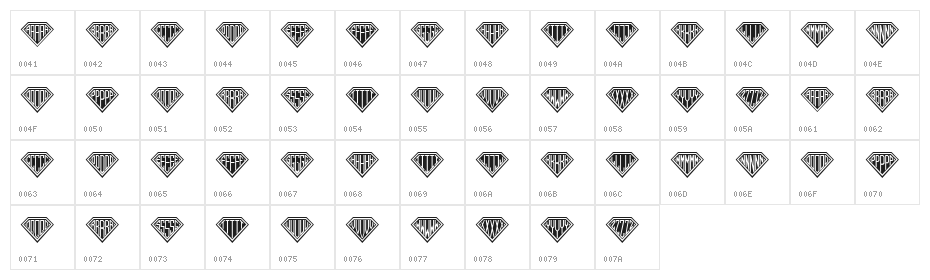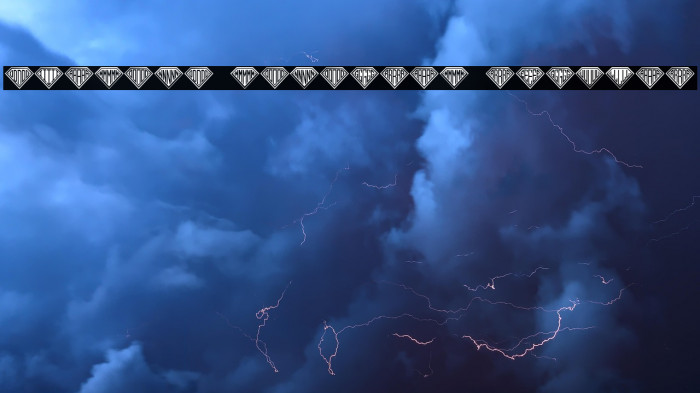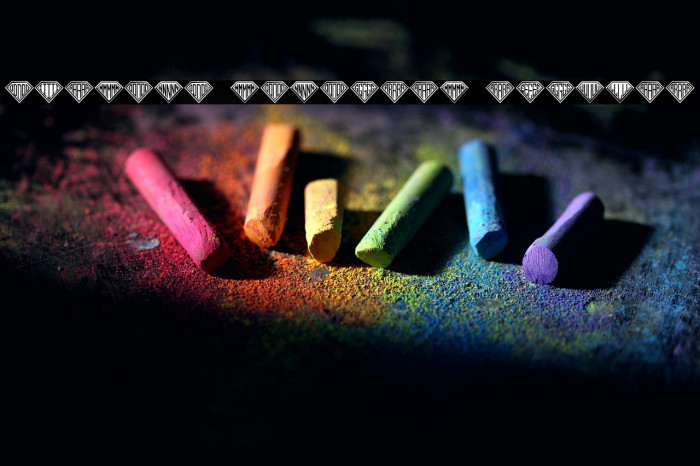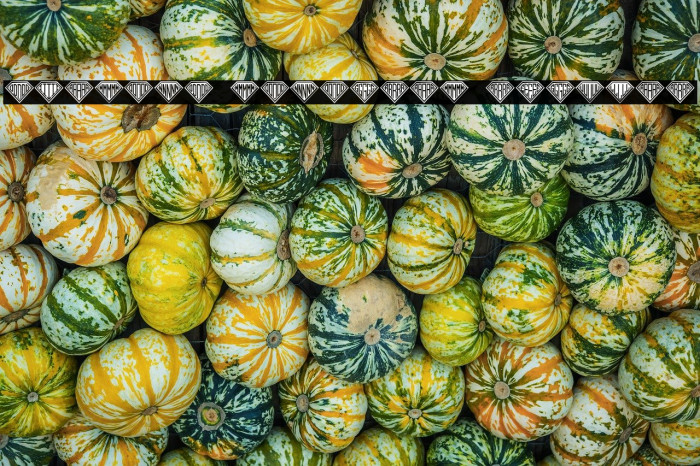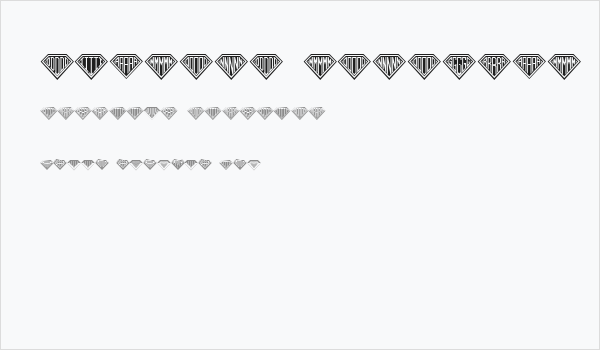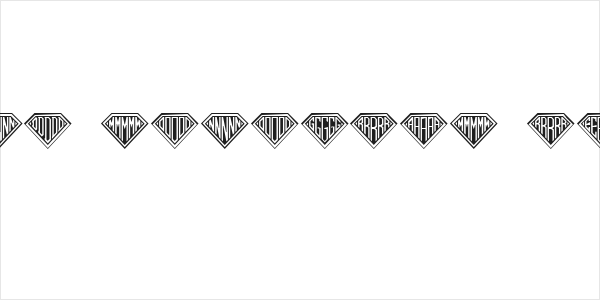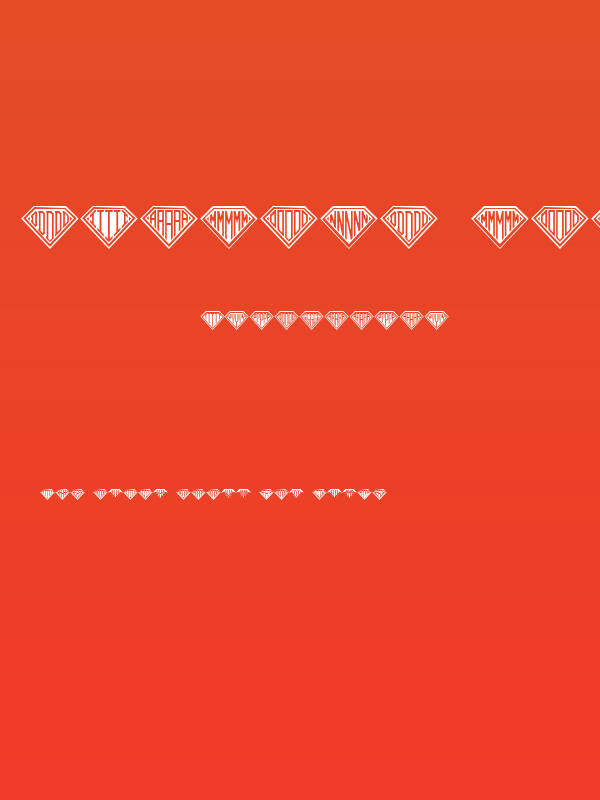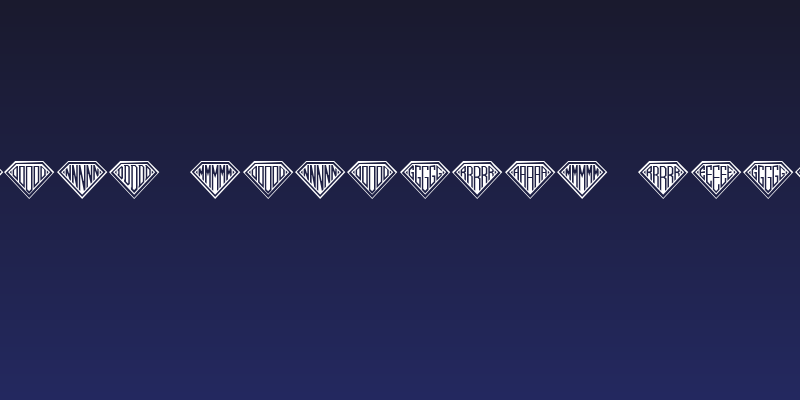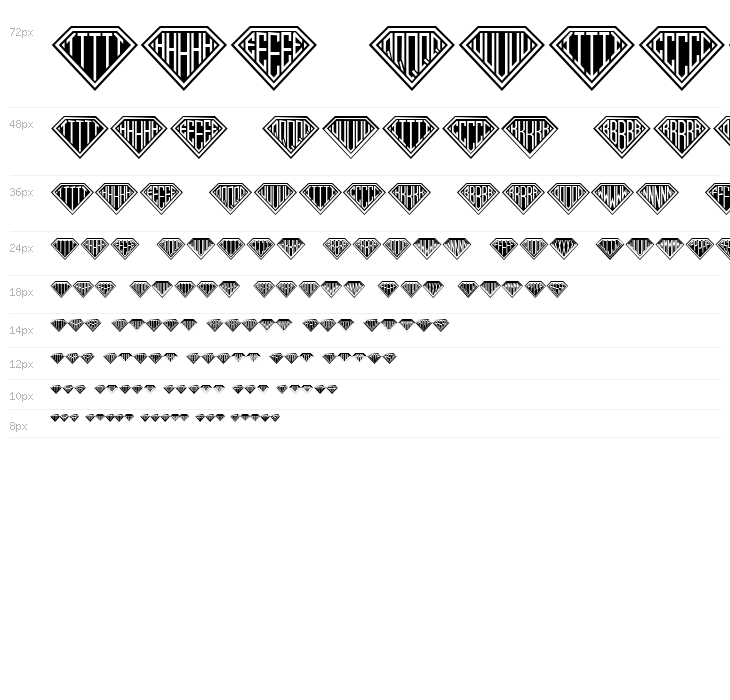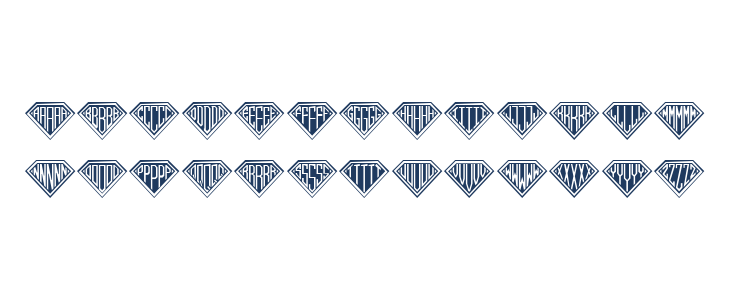
Diamond Monogram Regular Font
Diamond Monogram Regular Description
This font features a unique and decorative style, with each character enclosed within a diamond-shaped monogram. The letters and numbers are bold and geometric, creating a striking visual impact. The design is symmetrical, with clean lines and sharp angles that give it a modern yet classic feel. The characters are evenly spaced within their diamond frames, ensuring clarity and readability despite the intricate design. This font is ideal for projects that require a touch of elegance and sophistication, such as luxury branding, invitations, or high-end product packaging.
| Overall Style | Modern, Classic |
| Use Case | Logos, Headlines, Decorative elements |
| Proposed Projects | Ideal for luxury branding, invitations, high-end product packaging, and decorative purposes. |